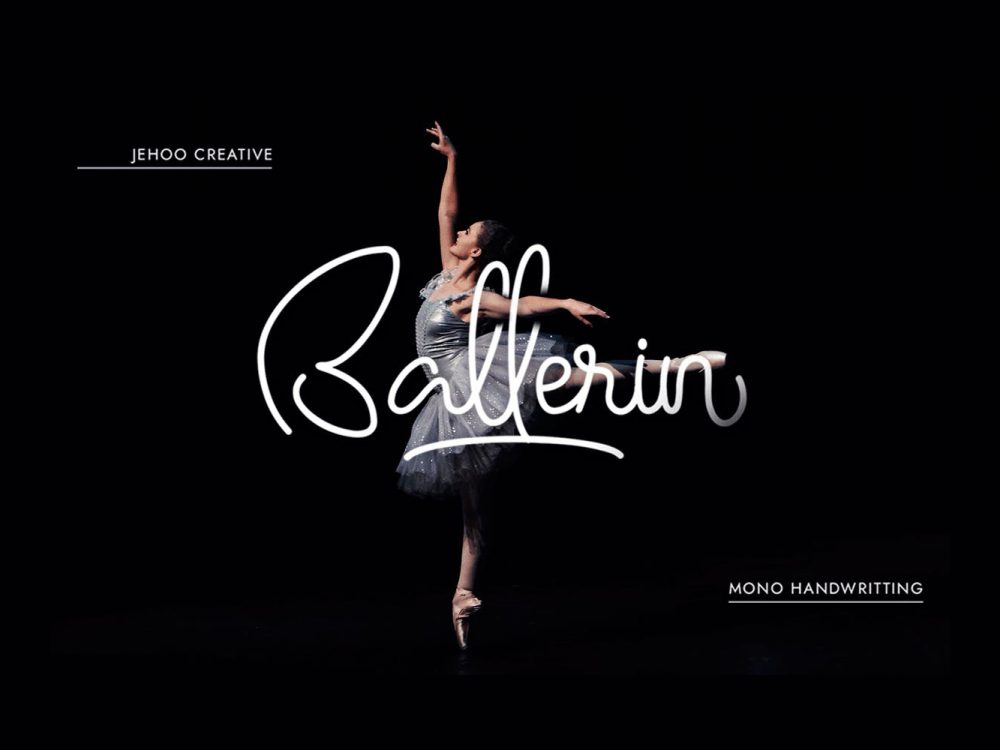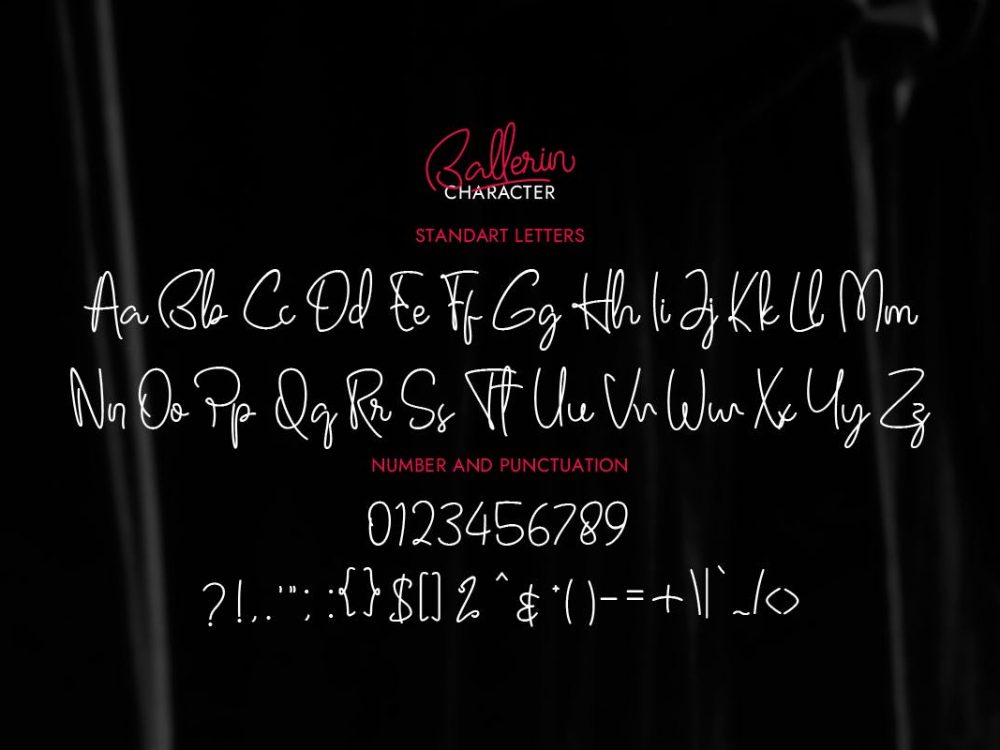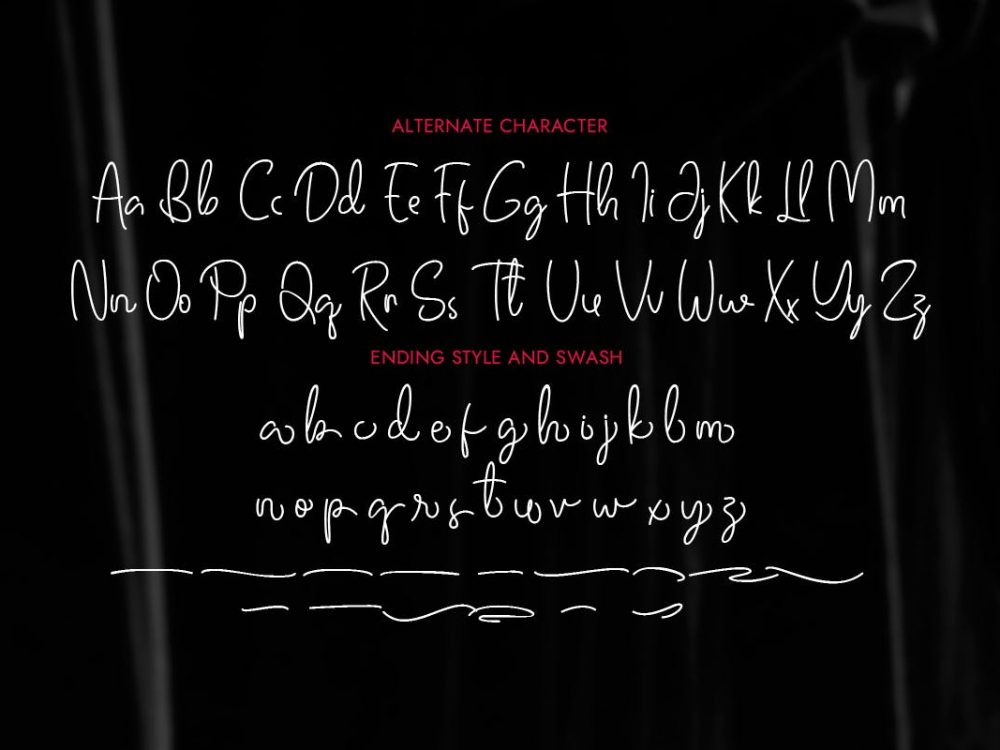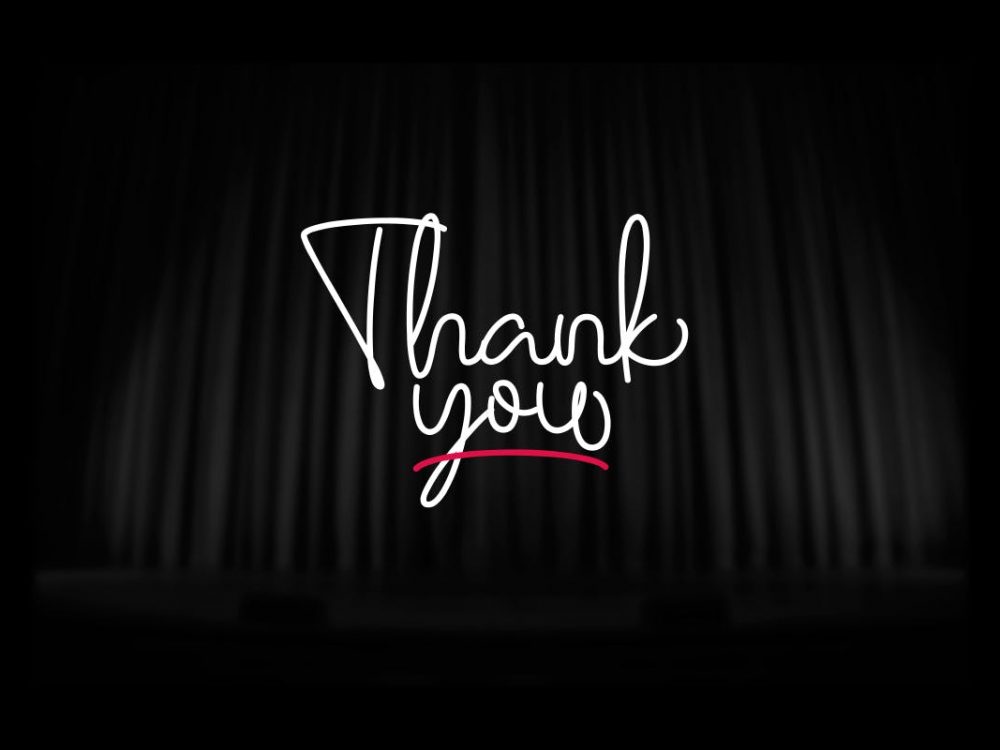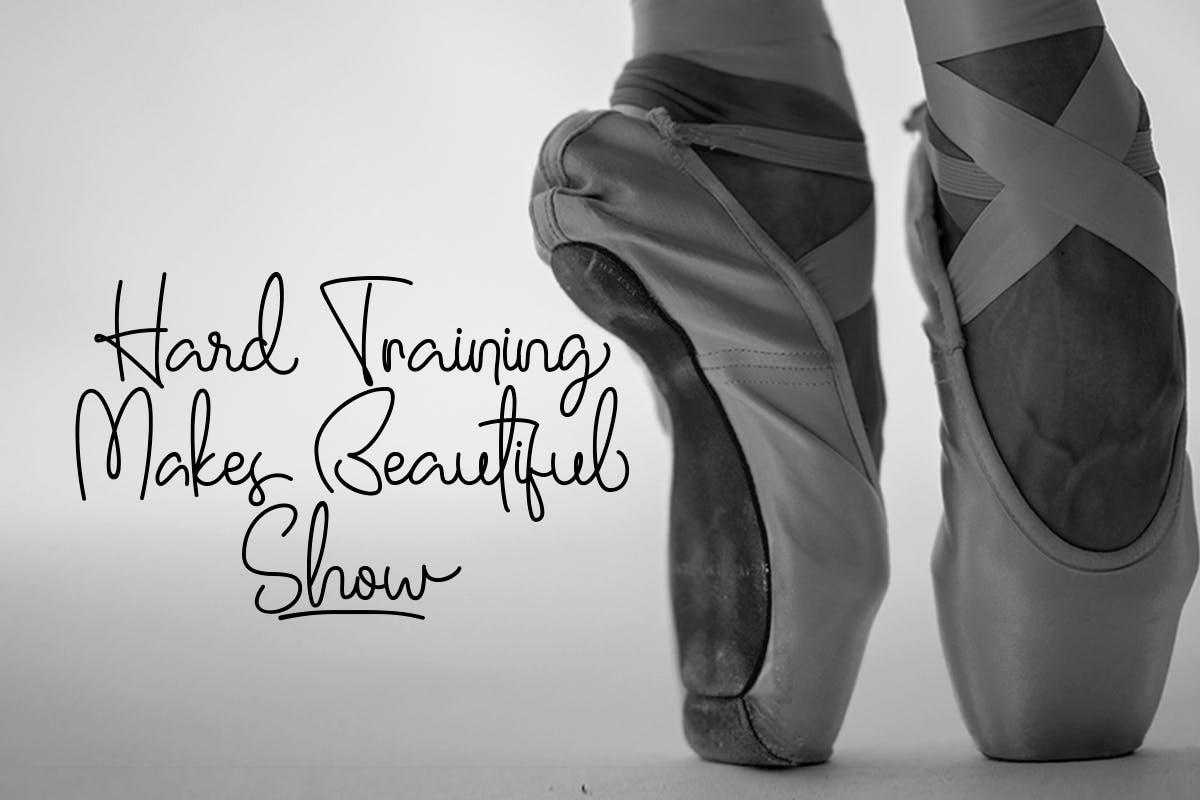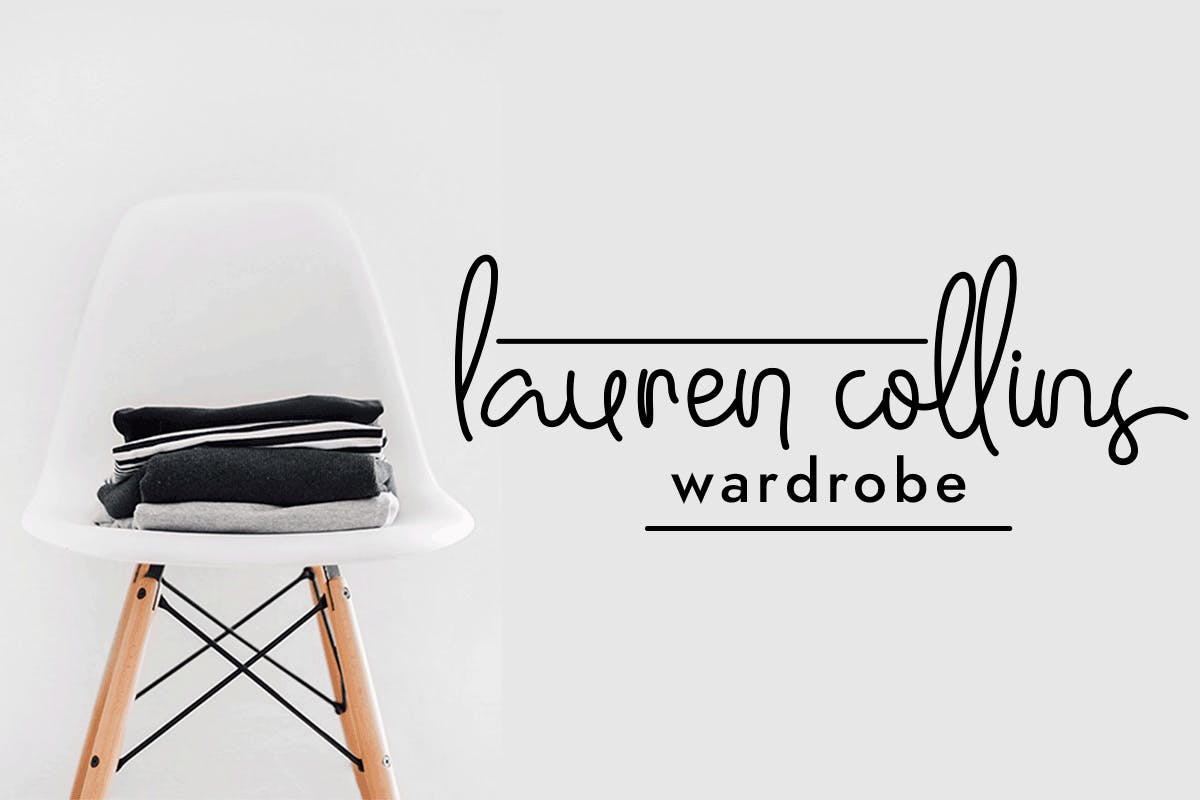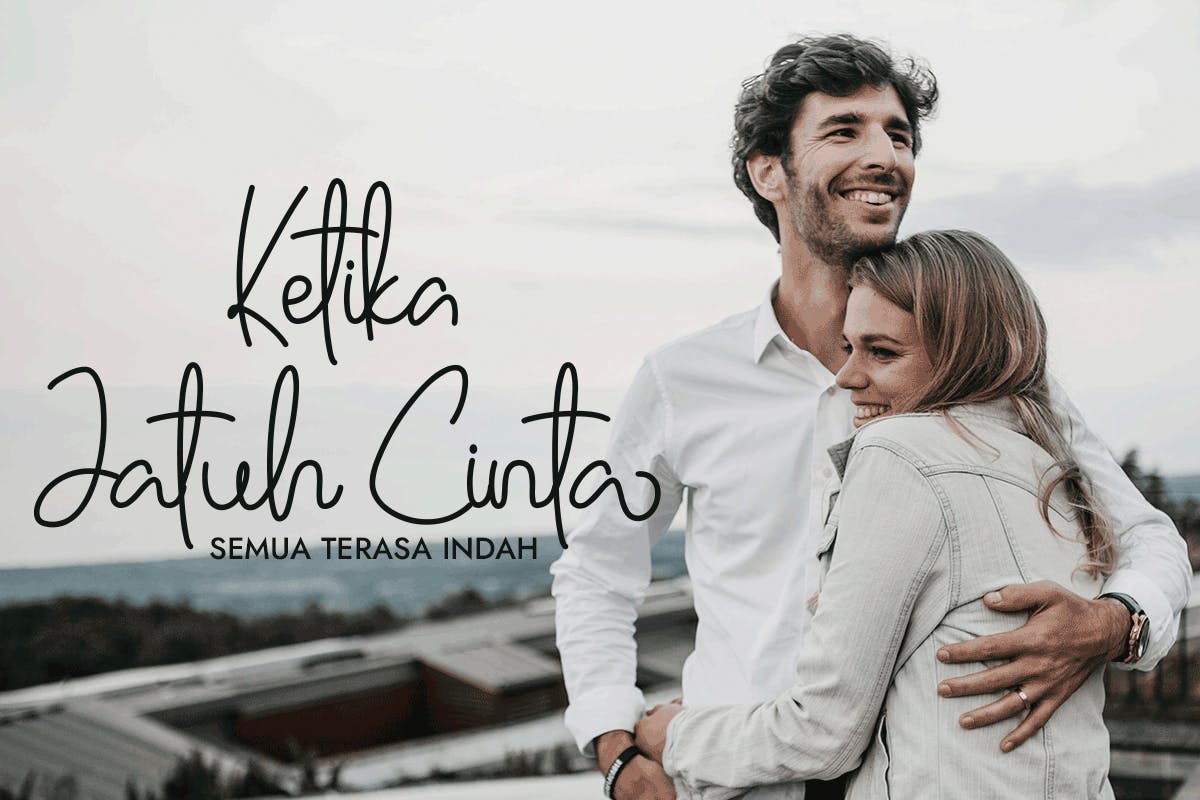
Free Ballerin Script Font
Free Ballerin Script Font is a handwritten typeface featuring a monoline elegant calligraphic style. This font will help you create unique design projects, your own corporate identity and improve your professional level. Use this font to create memorable posters, wedding invitations, cards, branding, flyers, and more. Improve the quality and increase the popularity of your design projects by using this font.
Author: Jehoo Creative